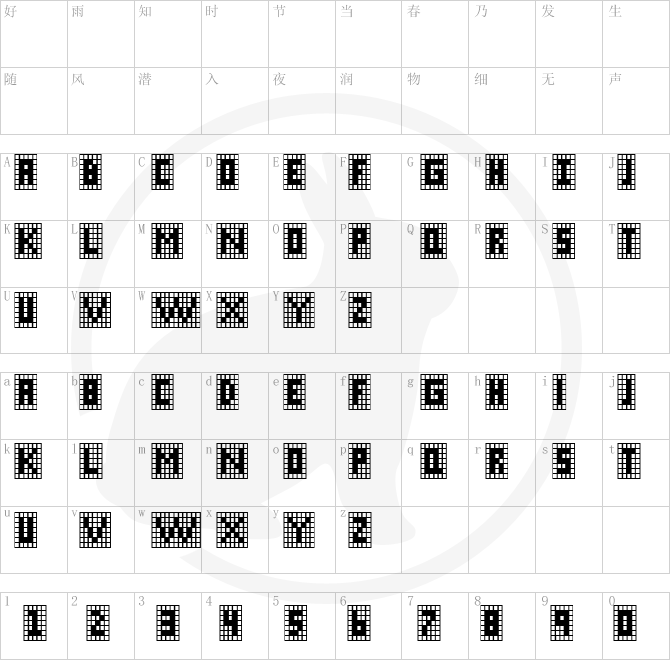
- Font Name:X-Grid
X-Grid.ttf is a very beautiful artistic font, X-Grid.ttf is widely used in the design and printing of various books and pictures,X-Grid.ttf has a strong visual impact,X-Grid.ttf is a commonly used font in newspapers, magazines and books, and is used in posters, e-commerce Poster design, store design, logo design, font design and other fields.X-Grid.